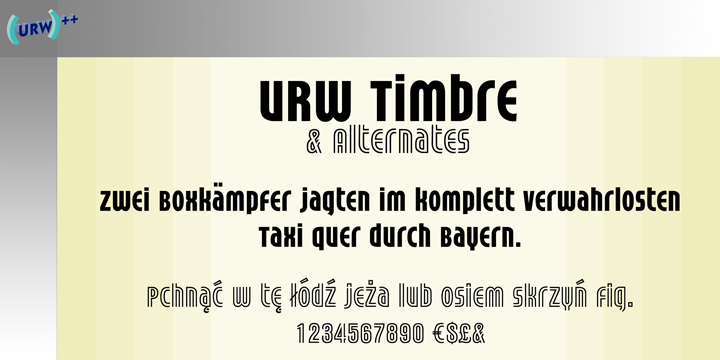
Timbre Font is perfect for music studios, record labels, audio equipment branding, concert venues, sound engineering firms, musical instrument manufacturers, acoustic design projects, radio stations, and any project requiring typography with rich sonic character and harmonic visual resonance.
What makes Timbre Font exciting is its acoustic harmony that captures the essence of sound waves and musical frequencies with letterforms that visually represent the rich tonal qualities and harmonic complexity of musical instruments. This innovative typeface embodies the science and art of sound with subtle variations in weight and rhythm that mirror the natural fluctuations of audio waveforms. The font's musical character and sonic sophistication make it perfect for brands working with sound, music production, and the technical artistry of audio engineering.
The Timbre Font family includes light, regular, and bold weights, featuring complete uppercase and lowercase alphabets, numerals, punctuation marks, and music-inspired design elements. The font maintains consistent harmonic flow throughout all weights while ensuring excellent readability for both dynamic headlines and detailed technical documentation in audio and music applications.
Whether you're designing for music production companies, creating audio equipment marketing, or developing sound engineering branding with acoustic aesthetics, Timbre Font Free Download brings authentic musical resonance and sonic sophistication to your projects. This exceptional typeface transforms ordinary text into visual symphonies that capture the essence of sound quality and musical expression. The font's harmonic character makes it ideal for recording studios, music technology, and acoustic consulting. Download this remarkable font today and bring the rich complexity of musical timbre to your design projects with authentic sonic elegance and harmonic visual beauty.